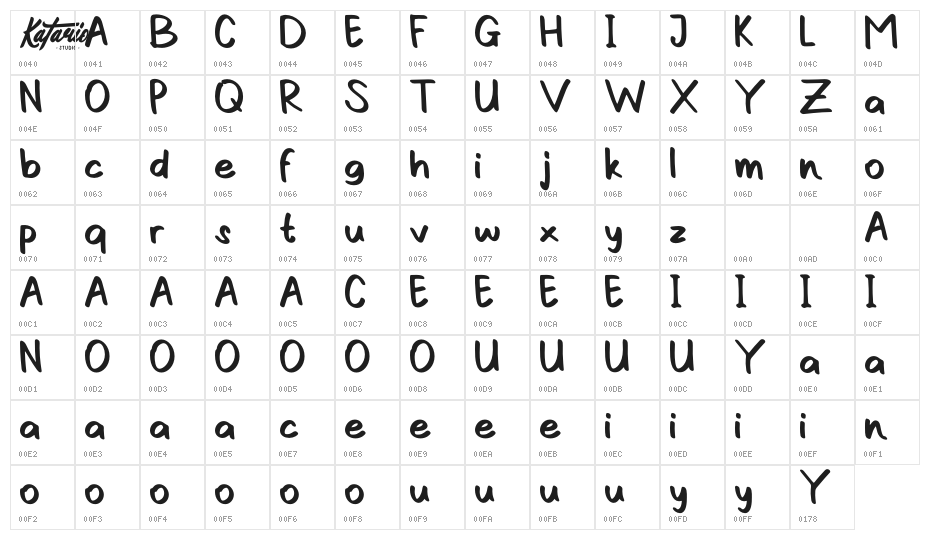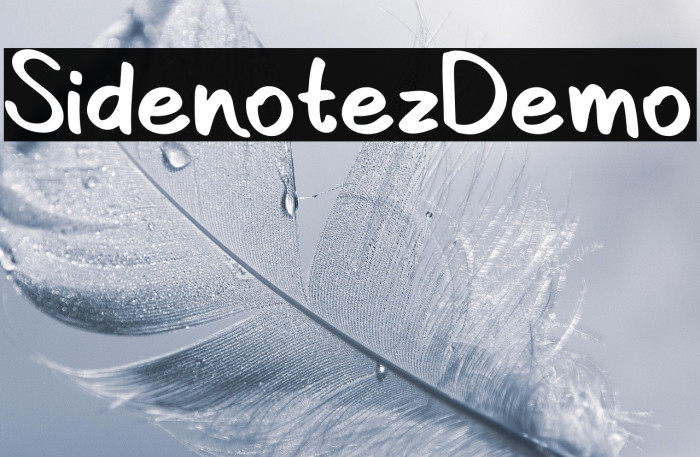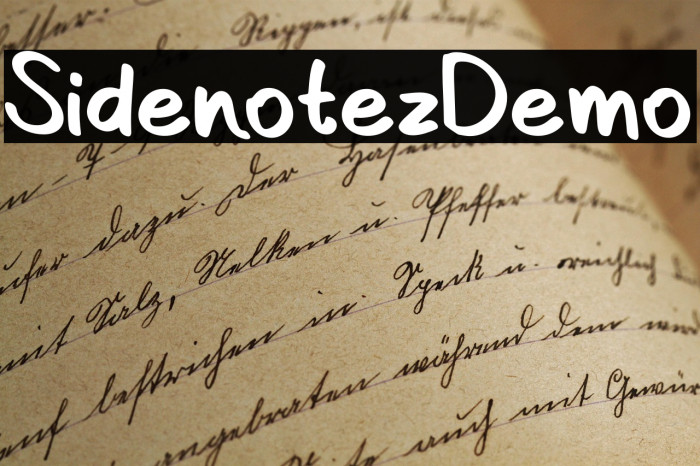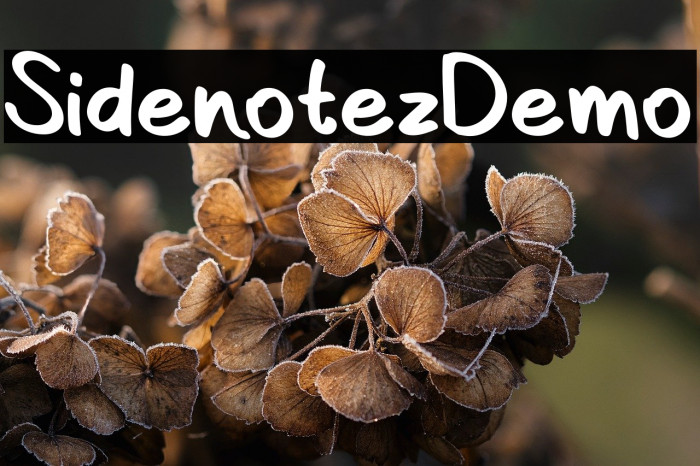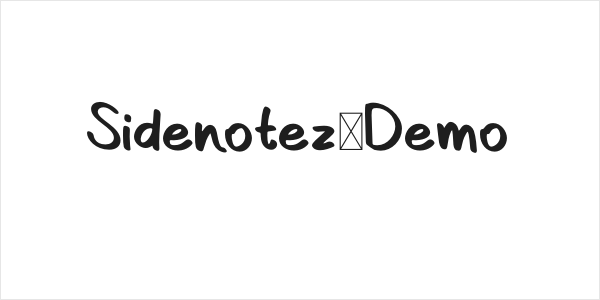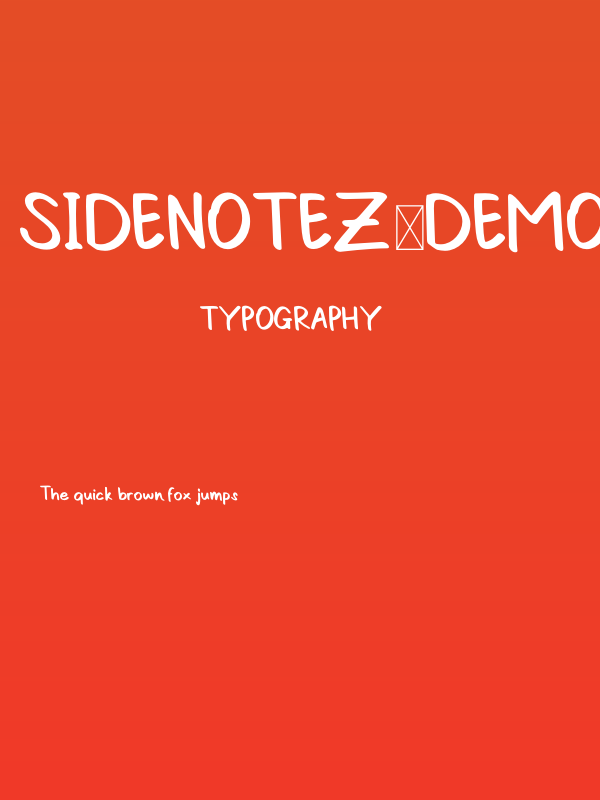
Sidenotez-Demo Font
Sidenotez-Demo Description
This font features a playful and informal handwritten style, characterized by its bold and slightly irregular letterforms. The uppercase letters are tall and slightly narrow, while the lowercase letters have a more rounded and casual appearance. The strokes are consistent in width, giving the font a uniform look, yet the slight variations in each character add a touch of uniqueness and charm. The font's overall appearance is friendly and approachable, making it suitable for projects that require a personal and informal touch. It lacks special characters, focusing solely on the alphabet.
| Use Case | Headlines, Informal text, Branding |
| Proposed Projects | Ideal for children's books, casual invitations, greeting cards, and playful branding. |